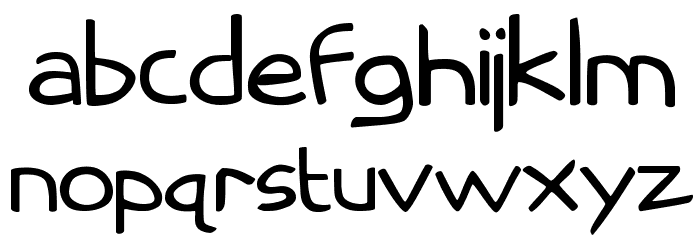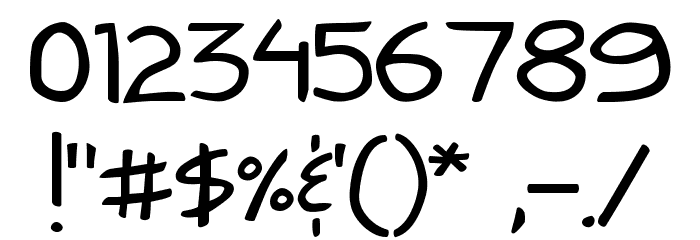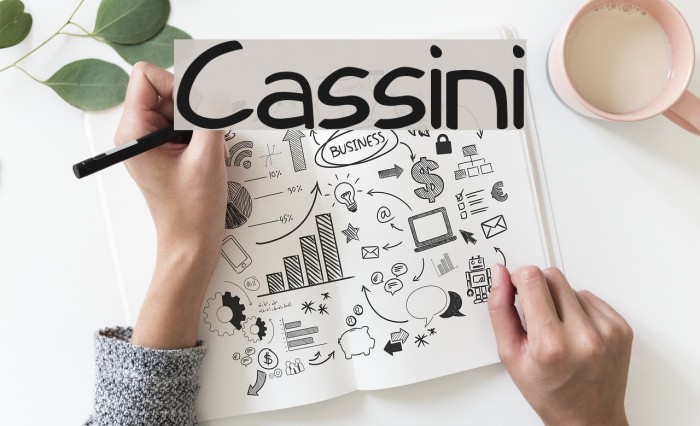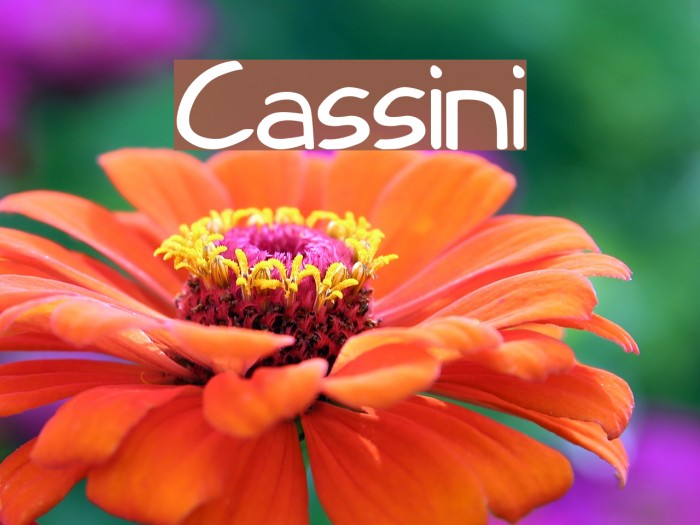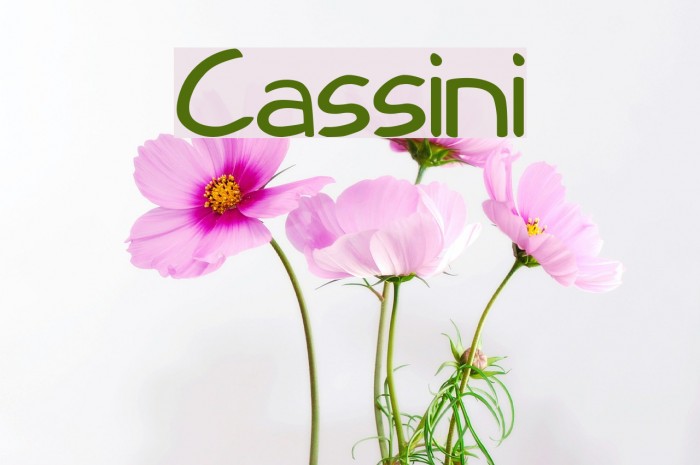
Cassini Font
This font features a playful and informal style with rounded edges and a slightly irregular baseline, giving it a hand-drawn appearance. The characters are bold and have a consistent stroke width, which contributes to its casual and approachable look. The uppercase and lowercase letters maintain a uniform height, while the numerals and special characters are designed to complement the overall aesthetic. Its unique style makes it suitable for projects that require a friendly and engaging tone.
A playful, hand-drawn font with rounded edges and consistent stroke width.
- Proposed Projects: Ideal for children's books, casual invitations, playful branding, and social media graphics.
- Overall Style: Casual
- Use Case: Headlines, Logos, Informal Text